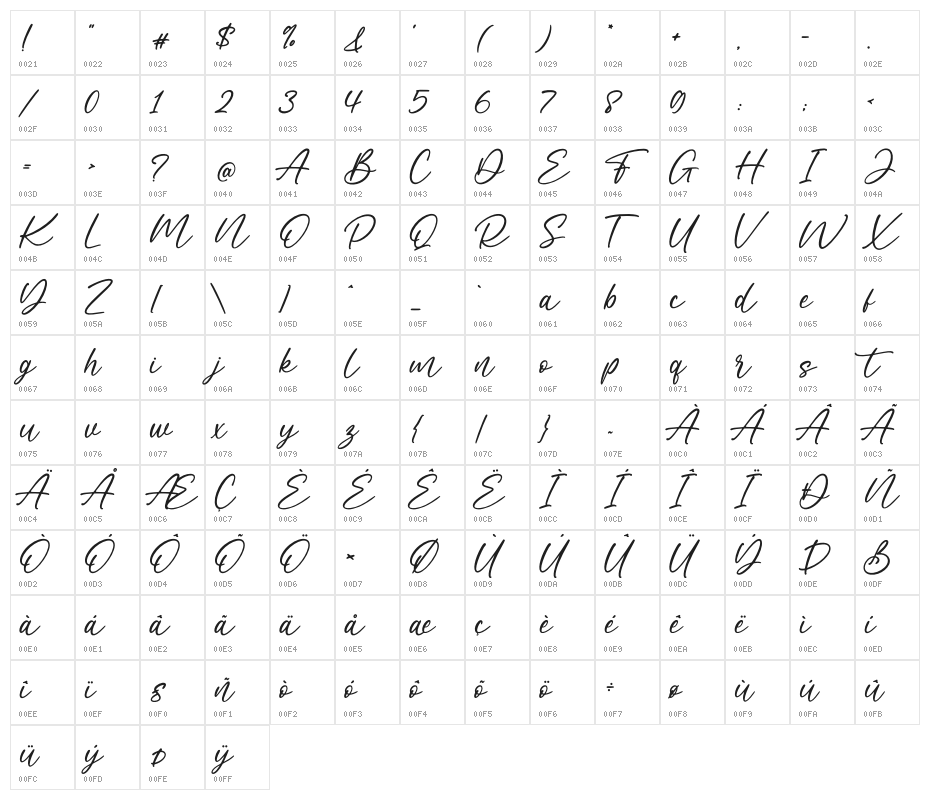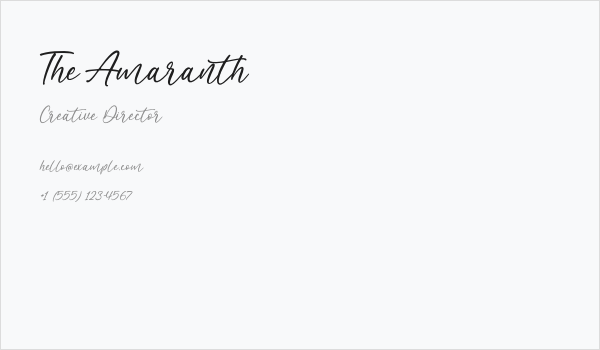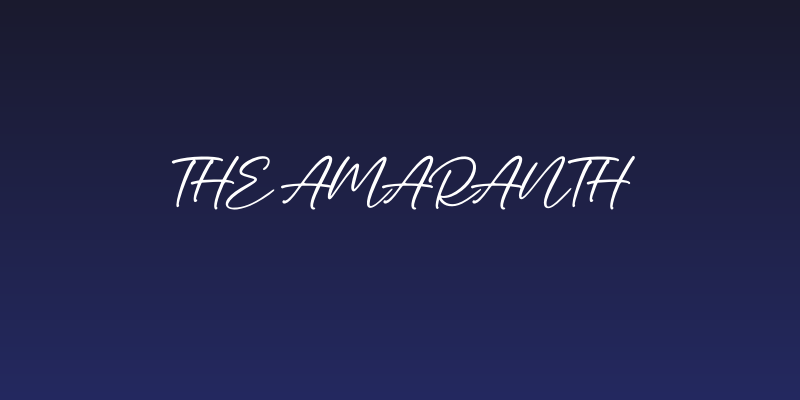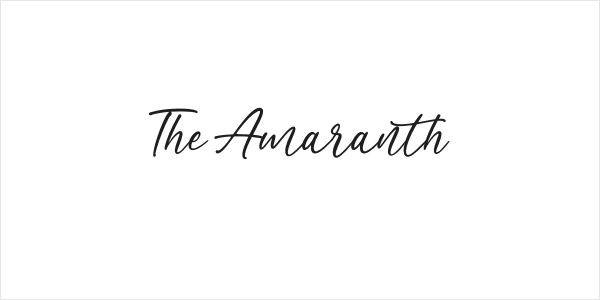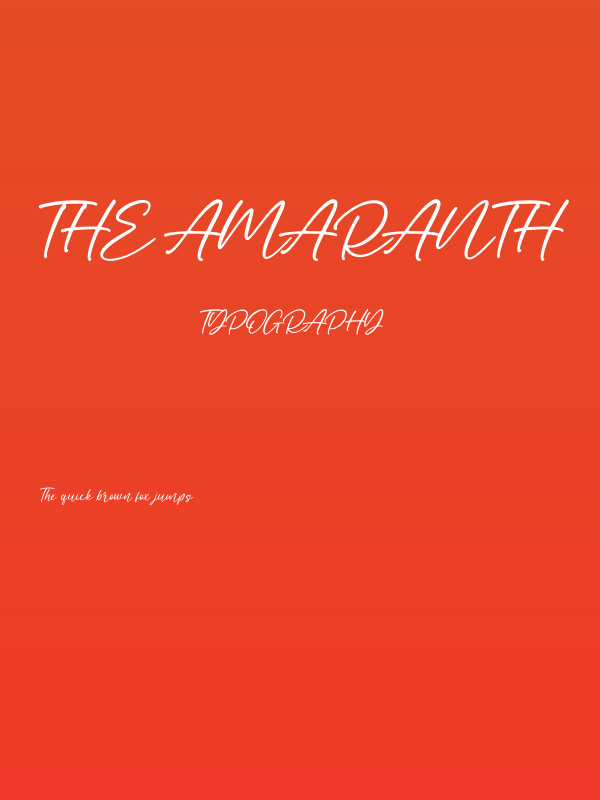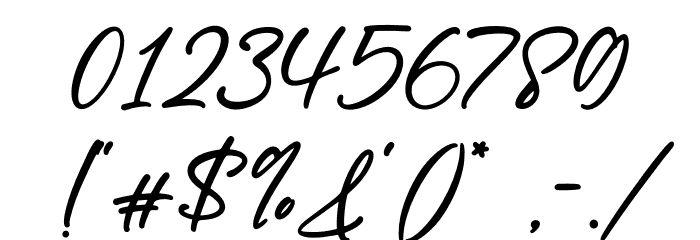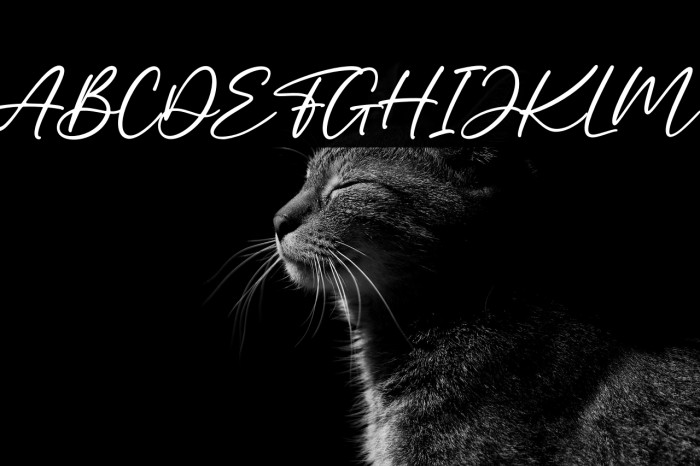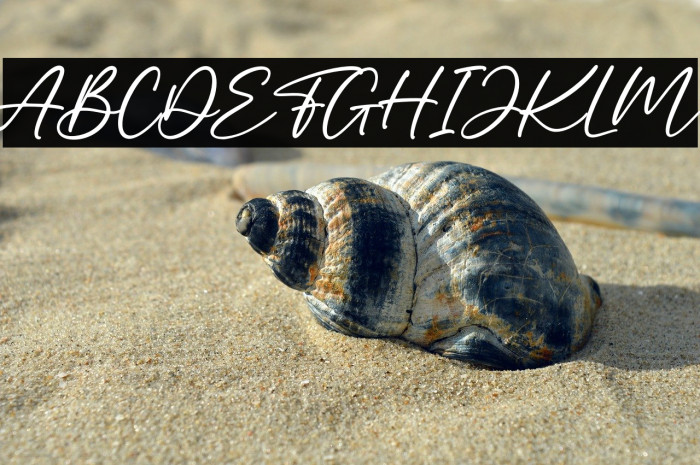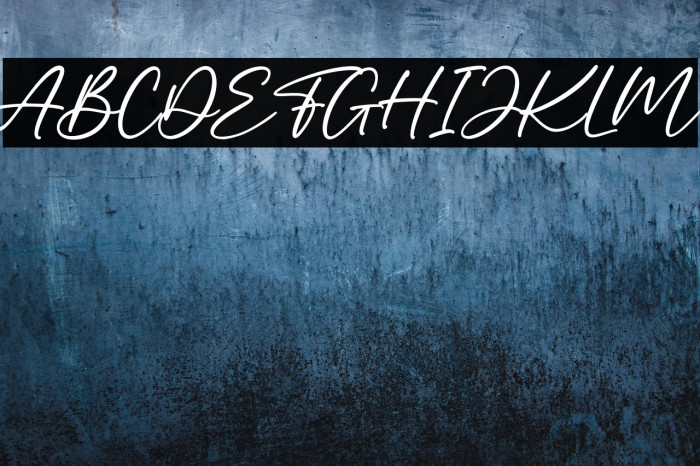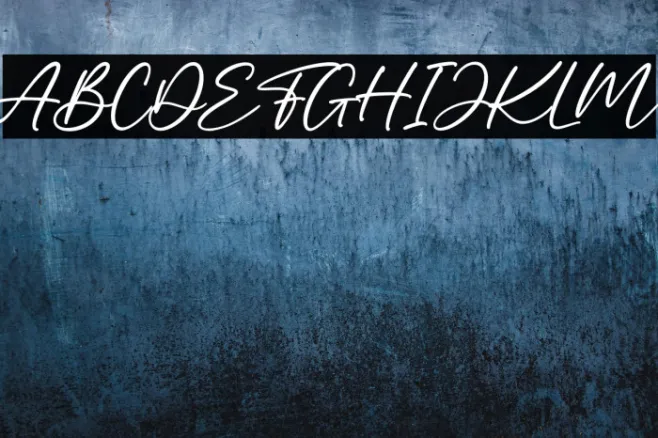
The Amaranth Font
The Amaranth Description
This font features a flowing, cursive style with a modern touch. The letters are interconnected, giving it a handwritten appearance that is both elegant and casual. The uppercase letters are slightly more elaborate, with sweeping curves and loops, while the lowercase letters maintain a consistent, smooth flow. The numerals are clear and easy to read, matching the overall aesthetic of the alphabet. Special characters are included, maintaining the same stylistic approach, which adds versatility to the font. The strokes are consistent in thickness, providing a balanced look that is neither too bold nor too light.
| Use Case | Logos, Invitations, Social Media |
| Proposed Projects | Ideal for wedding invitations, greeting cards, branding, and social media graphics. |